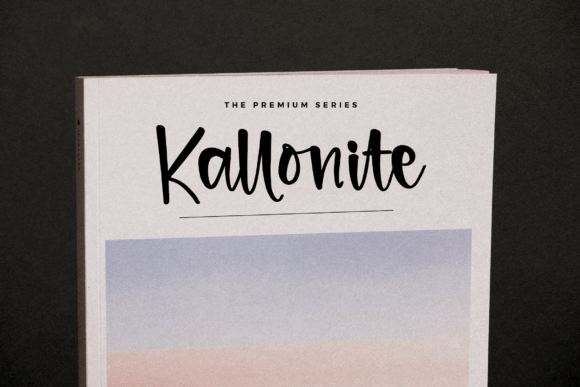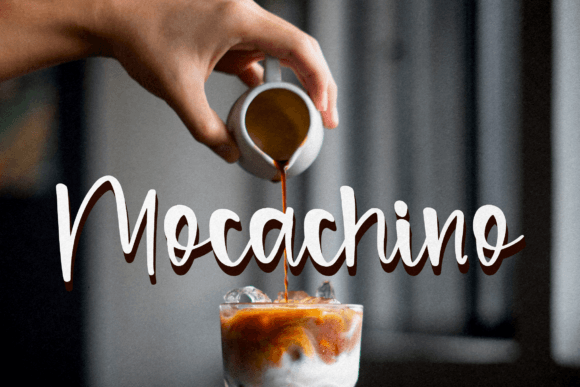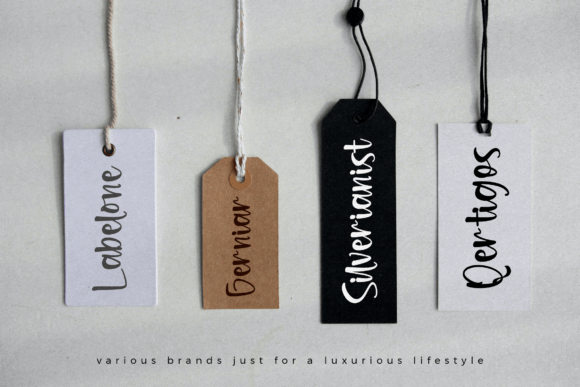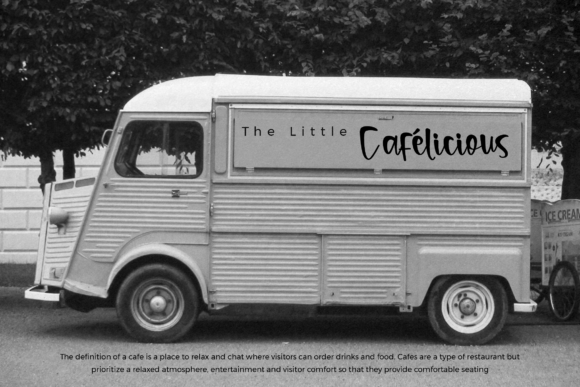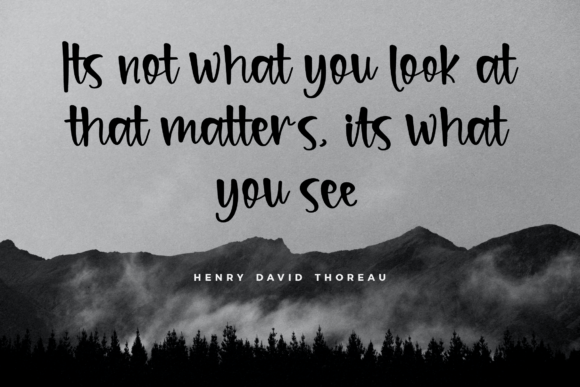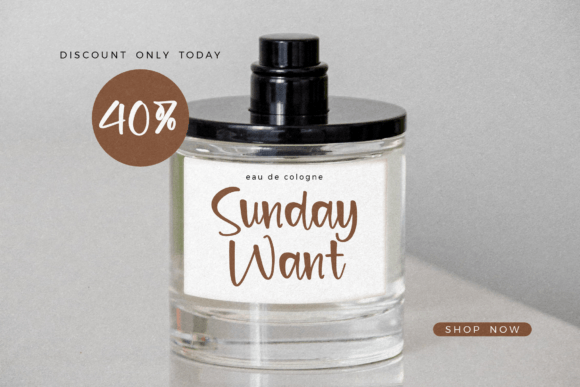
Introduction to Mondilita Classika Font
Mondilita Classika is an exquisite handwritten font, masterfully designed to become a true favorite.
Key Features of Mondilita Classika Font
Why Choose Mondilita Classika Font?
Mondilita Classika Font offers exceptional quality and versatility, making it a valuable addition to your design toolkit. Whether you’re creating for personal projects or commercial use, Mondilita Classika Font delivers professional results.